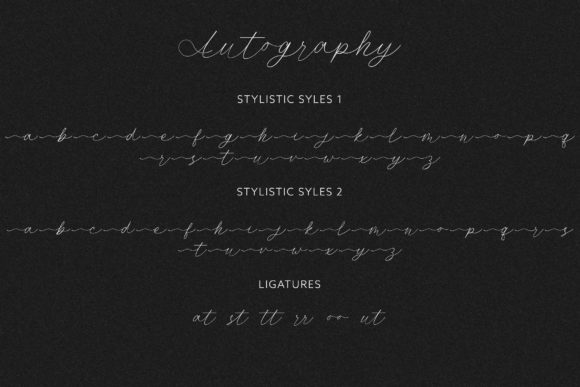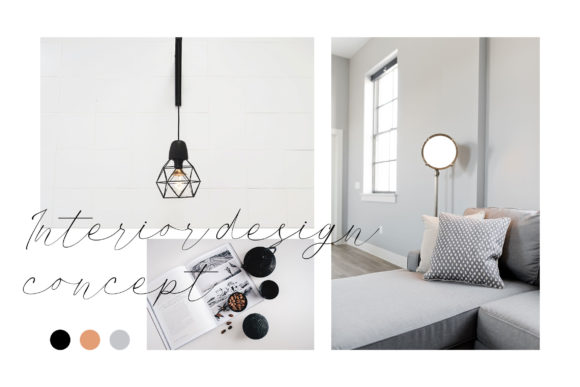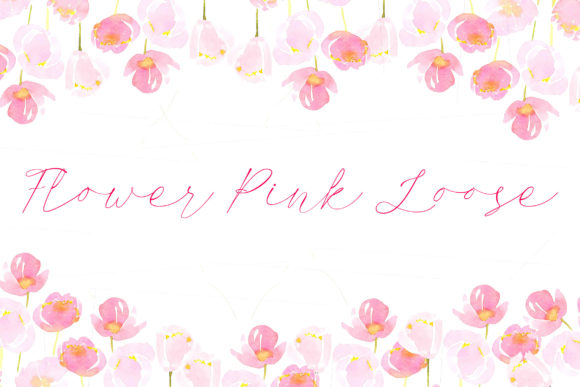
About Autograph Font
Autograph is a stylish and modern script font with a casual chic flair. It is perfect for branding, wedding invites and cards, and also for red wine labels and much more!